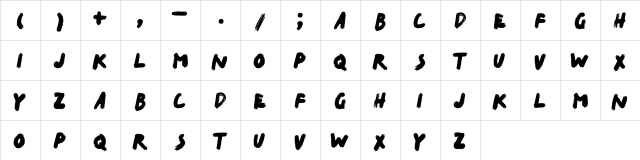
TitleBrushXL Extra-Bold Font Preview
Design Context for TitleBrushXL Typeface
TitleBrushXL flows with the natural rhythm of handwritten lettering, making it ideal for designs that call for warmth and personal expression. The heavy weight commands attention and anchors typographic hierarchies.
Font Pairing: Combine TitleBrushXL with a simple geometric sans for maximum contrast — the tension between flowing curves and clean structure is a classic typographic pairing.
Pro Tip: Pair TitleBrushXL with a clean sans-serif for supporting text. The contrast between fluid script and geometric structure creates an elegant typographic hierarchy.